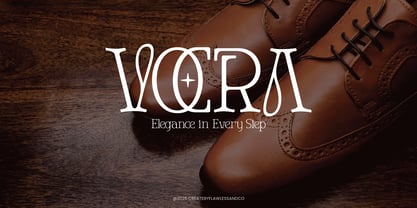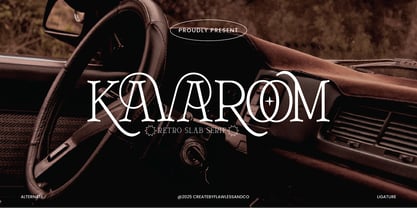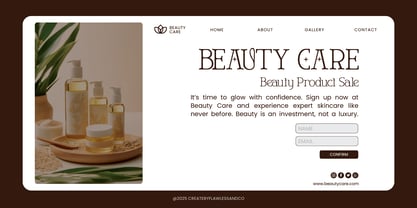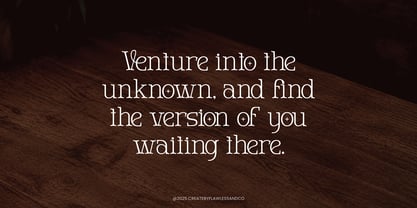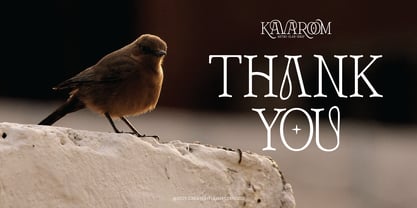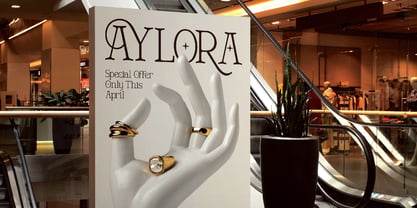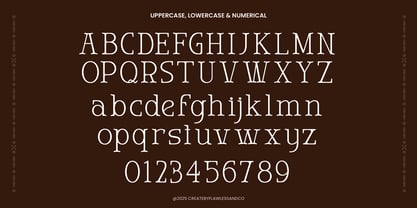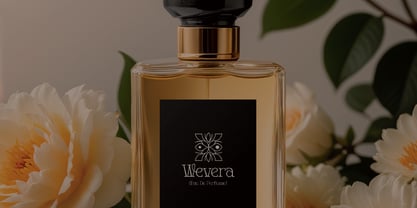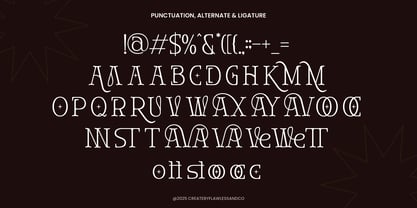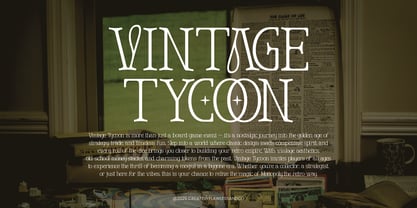
Kavaroom
Kavaroom is a retro slab serif font that channels nostalgic elegance with a bold, contemporary edge. Its distinctive letterforms, curved details, and carefully crafted ligatures create a font that feels both classic and fresh—perfect for designers seeking strong visual identity with artistic flair. Designed to stand out in applications like vintage branding, editorial layouts, packaging, and signage, Kavaroom blends the charm of the past with modern sophistication. The wide spacing, ornamental alternates, and subtle decorative touches give it a timeless personality that elevates any composition.
Whether you're creating a logo, headline, or promotional material, Kavaroom brings style, structure, and uniqueness to your typography.
Features :
Multilingual, Uppercase alphabet A-Z, Lowercase alphabet a-z, Numbers 0-9, Some punctuation, Alternates & Ligatures